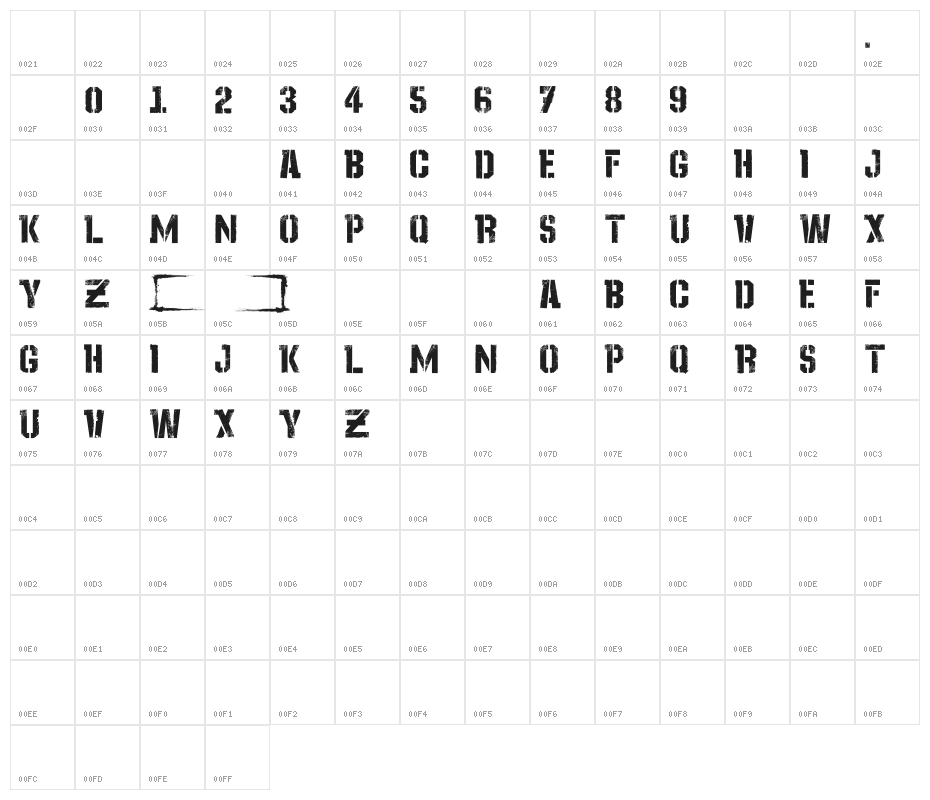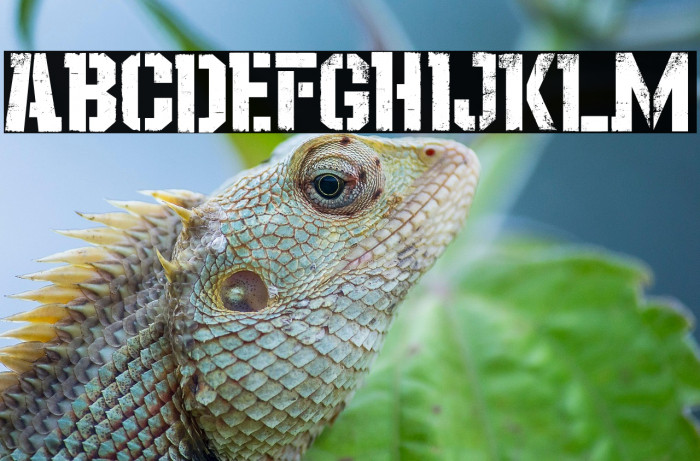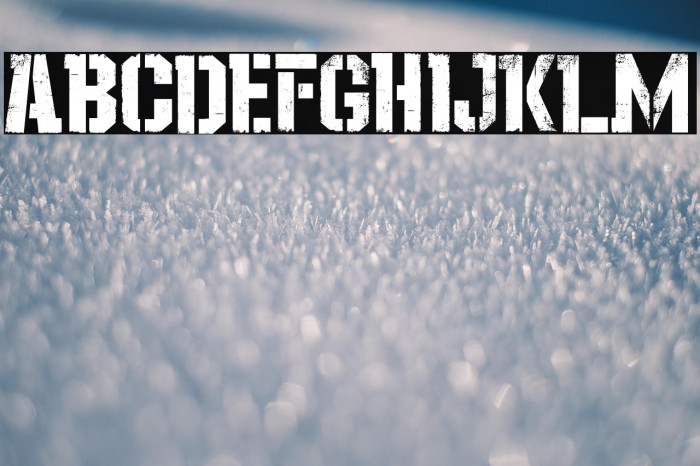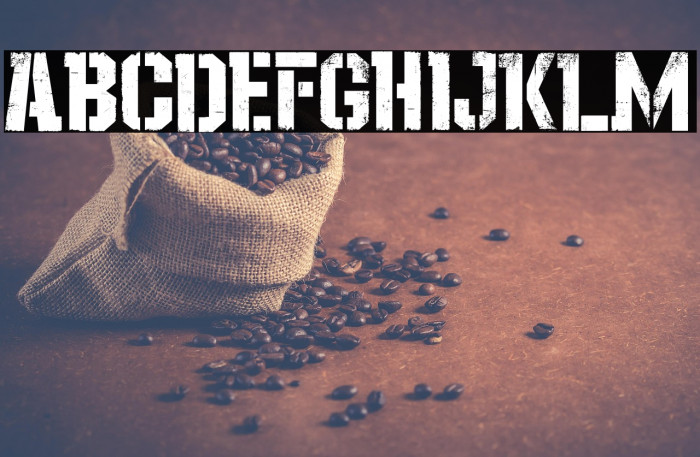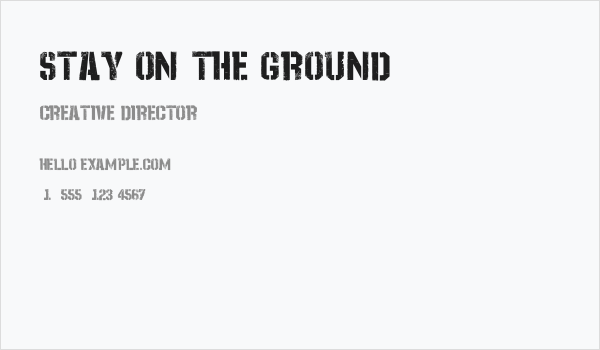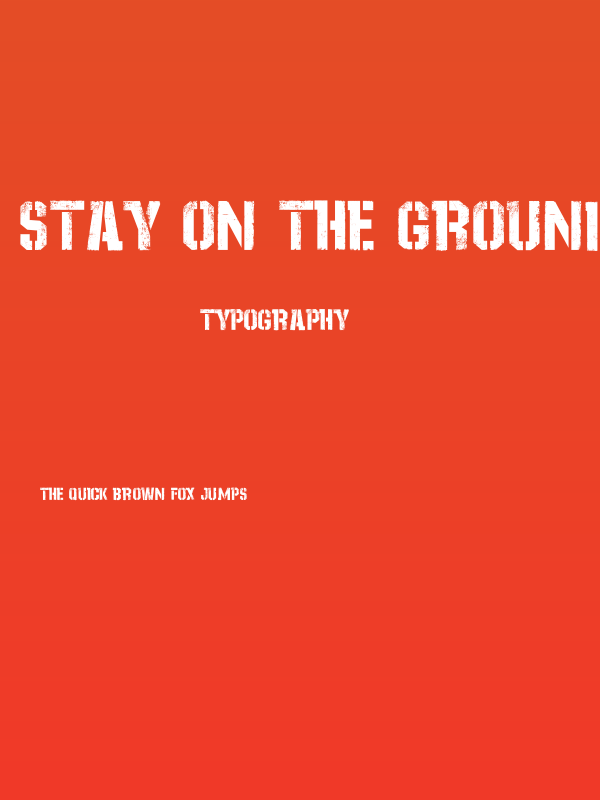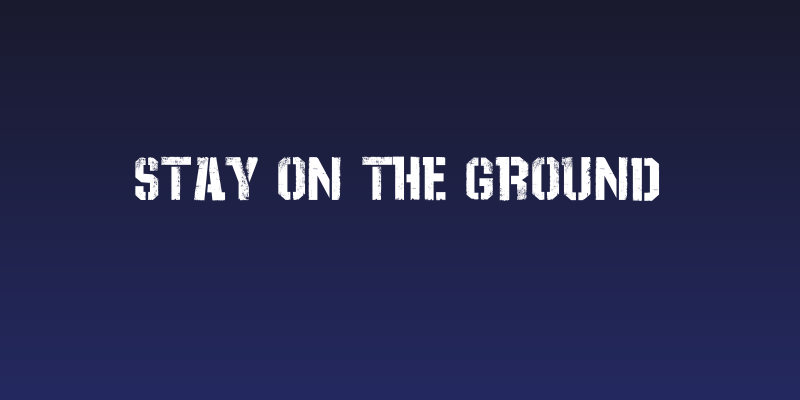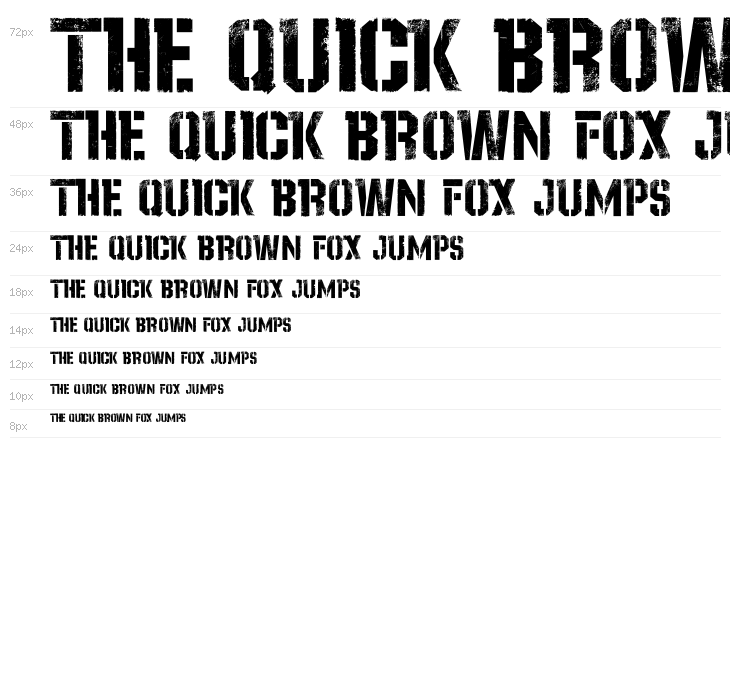
Stay On The Ground Font
This font features a bold, distressed style with a rugged, worn-out appearance. The characters are uppercase and have a strong, impactful presence, making them ideal for attention-grabbing designs. The texture gives it a vintage, industrial feel, reminiscent of stenciled letters or old signage. The strokes are thick and consistent, with a slight variation in texture that adds character and depth. The numbers and special characters follow the same stylistic approach, ensuring a cohesive look across all elements.